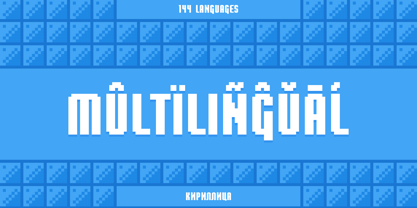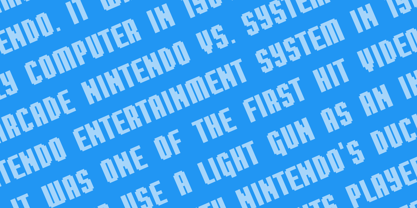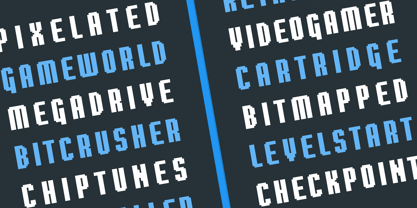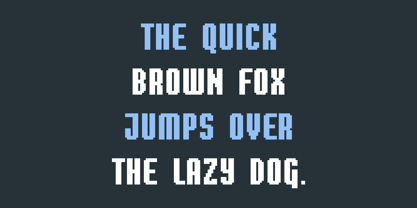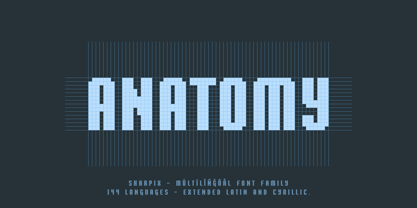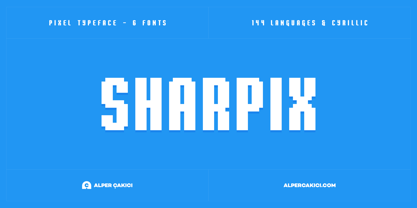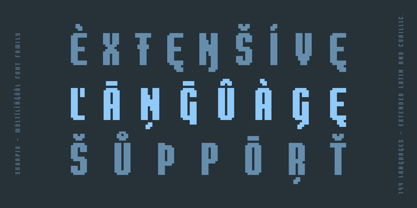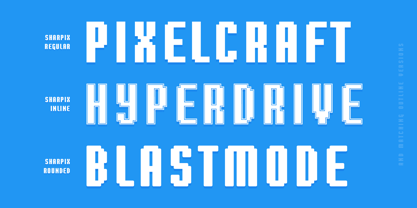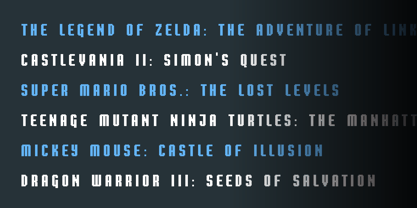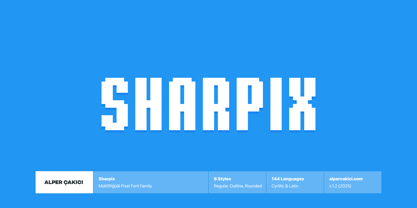
Sharpix
by AlperCakici
The Sharpix Font Family was designed by Alper Çakıcı and published by AlperCakici. Sharpix contains 6 styles and family package options. More about this family
Sharpix is a modern pixel typeface that bridges the gap between nostalgic 8-bit charm and contemporary design precision. Crafted by Alper Çakıcı, this 6-style family refines the classic bitmap aesthetic through a clean 50-pixel grid, delivering crisp geometry and consistent rhythm across every glyph. Designed for both retro-inspired and forward-looking projects, Sharpix excels in games, logos, user interfaces, motion graphics, and display typography that demand personality and precision. From the solid clarity of Regular to the structured flair of Inline, Rounded, and Outline variants, each style is engineered to maintain perfect alignment and optical balance — even at micro-sizes or oversized headlines. Supporting 144 languages, including full Cyrillic coverage, Sharpix is built for global creativity. Its streamlined versatility makes it easy to move between moods — from bold and tech-driven to friendly and playful — while staying true to its pixel-perfect core. FAMILY DETAILS: Styles (6): Regular, Inline, Inline Rounded, Outline, Outline Rounded, Rounded Languages: 144+ (including Cyrillic) Perfect for: Games, logos, UI, posters, retro visuals, pixel art, and display use